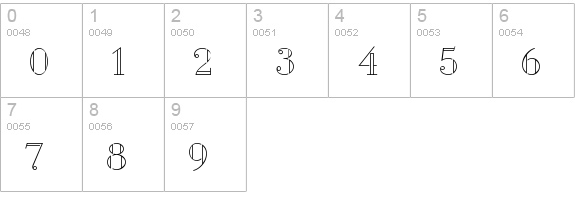
Bo Diddlioni Stencil NF Font Details
Bo Diddlioni Stencil NF font is a unique and eye-catching typeface that combines a modern stencil design with a classic touch. Its bold and striking appearance makes it perfect for headlines, posters, and other display purposes. The font features clean lines and sharp edges, giving it a distinct and memorable look. The Bo Diddlioni Stencil NF font is versatile and can be used for a variety of design projects, from branding to editorial design. Its readability and legibility make it a great choice for both print and digital applications. One of the best things about the Bo Diddlioni Stencil NF font is that it is free to download at FontsMarket.com. This means that you can easily add this stylish and contemporary font to your collection without any cost. Don't miss out on this fantastic opportunity to enhance your designs with the Bo Diddlioni Stencil NF font!